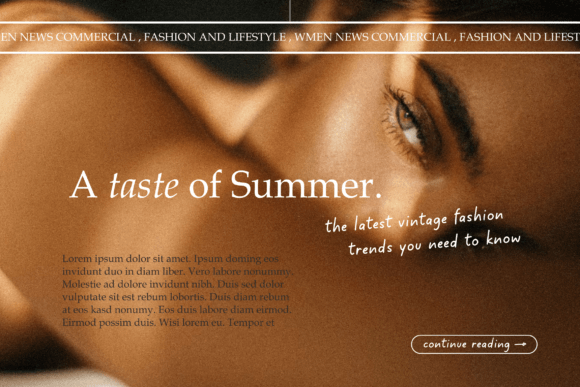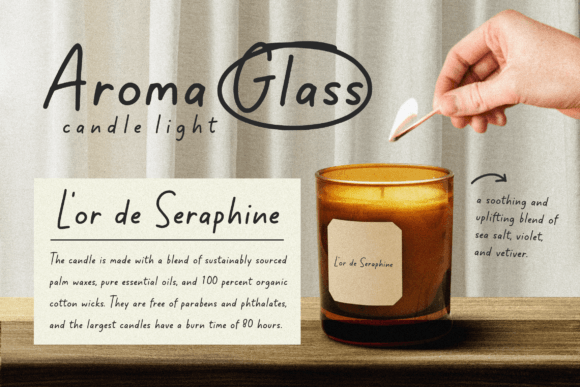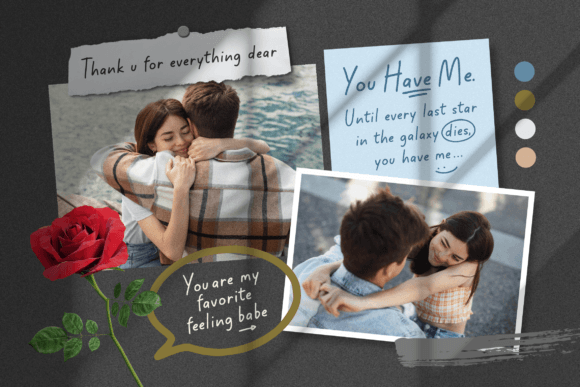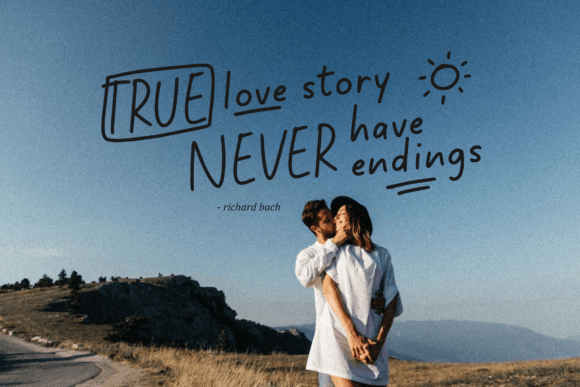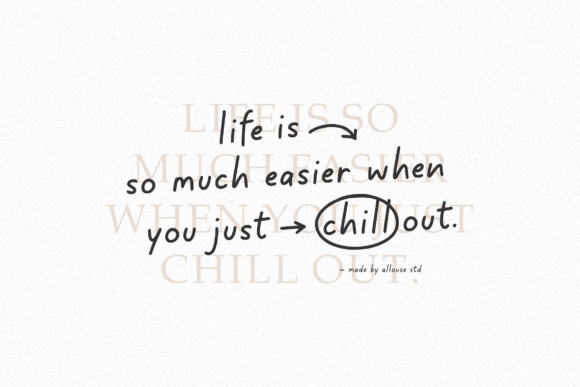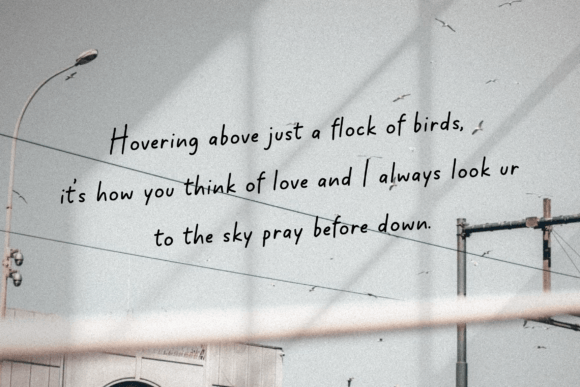
Introduction to Missing Lovely Font Font
Fonts play a crucial role in design, and the Missing Lovely Font font is a typeface that brings both character and versatility to any project. Whether you’re working on a branding project, a website, or a print design, the Missing Lovely Font font offers a unique style that can elevate your work.
Missing Lovely is a delicate and friendly handwritten font.
Its distinct and well-balanced letters make this font a masterpiece Fall in love with its incredibly versatile style and use it to create spectacular designs.
Key Features of Missing Lovely Font Font
Why Choose Missing Lovely Font Font?
The Missing Lovely Font font is more than just a typeface – it’s a design tool that helps you communicate your message with style and clarity. Its unique character set and versatile design make it suitable for a wide range of applications, from elegant invitations to bold headlines.
With its carefully crafted letterforms and balanced proportions, the Missing Lovely Font font ensures readability and visual appeal across all mediums.
What makes Missing Lovely Font font special?
The Missing Lovely Font font stands out with its unique design, exceptional readability, and versatility across various design applications.